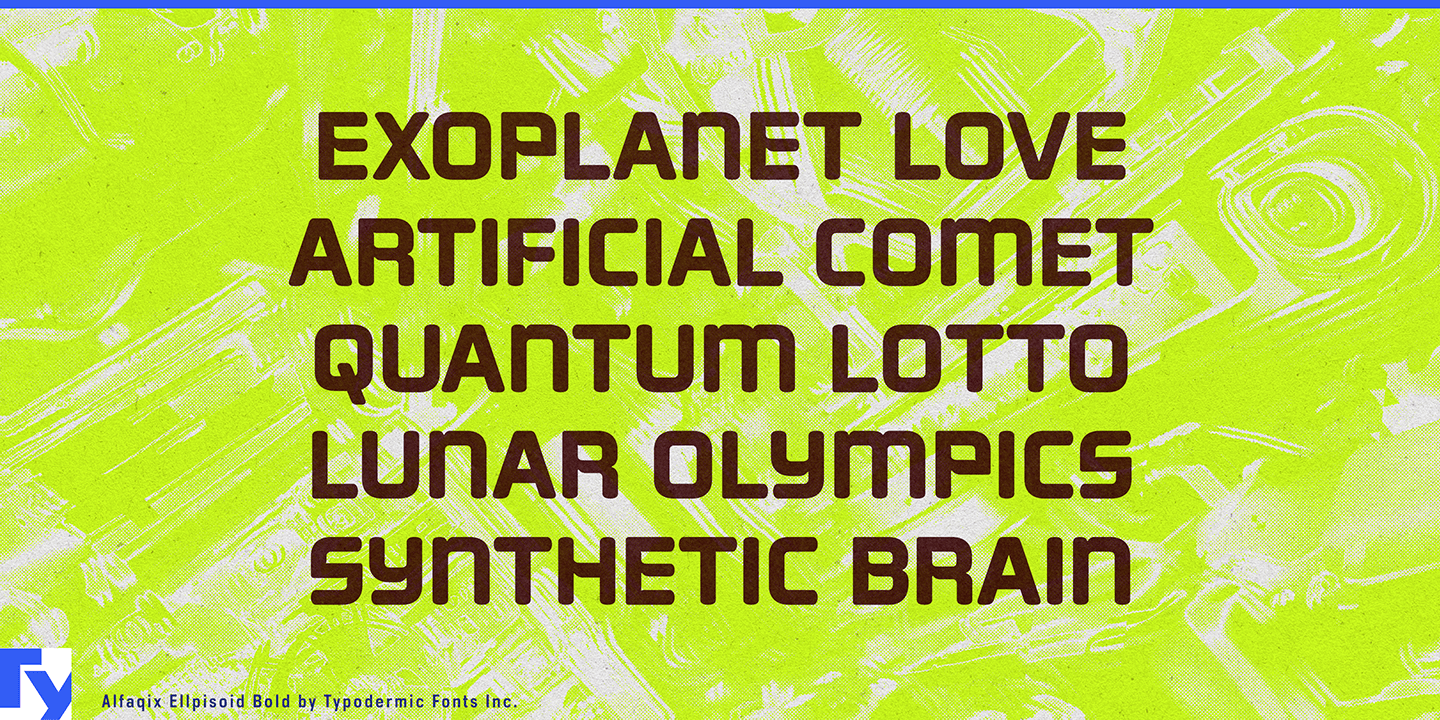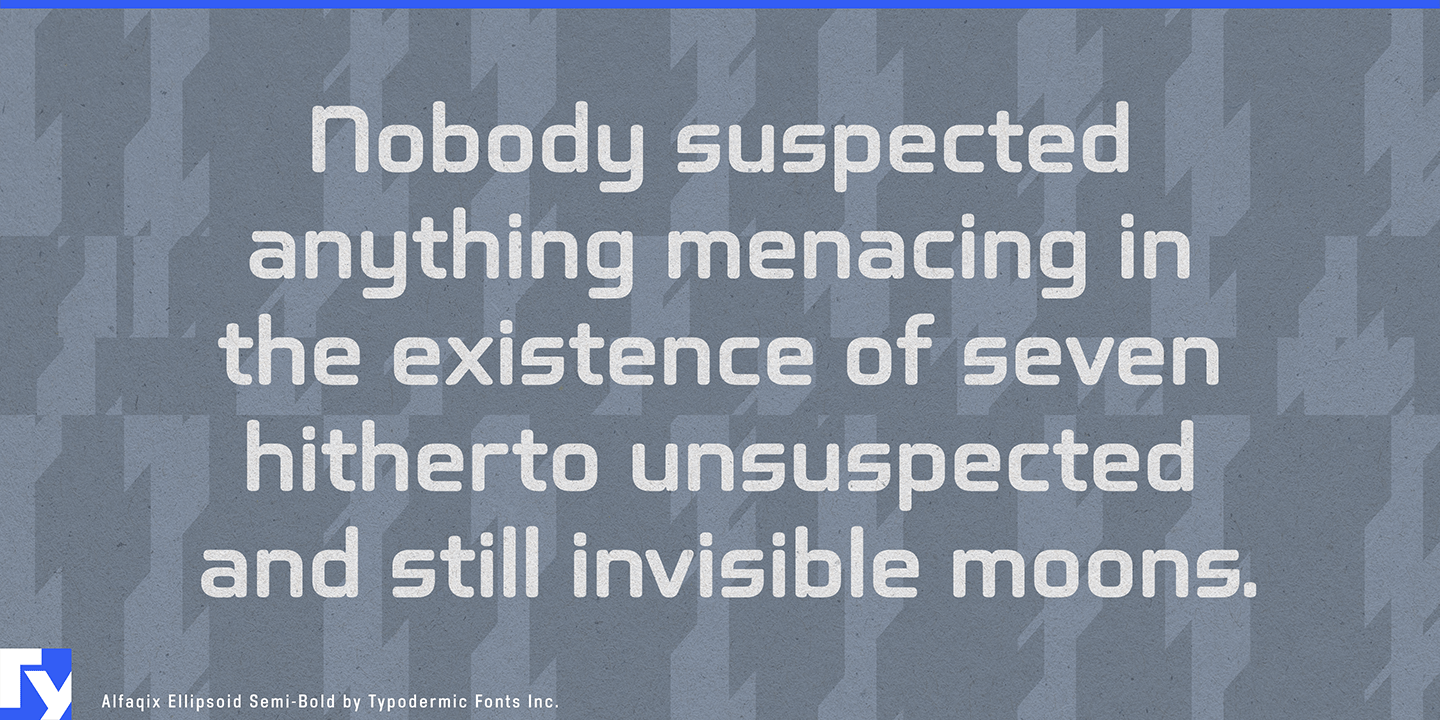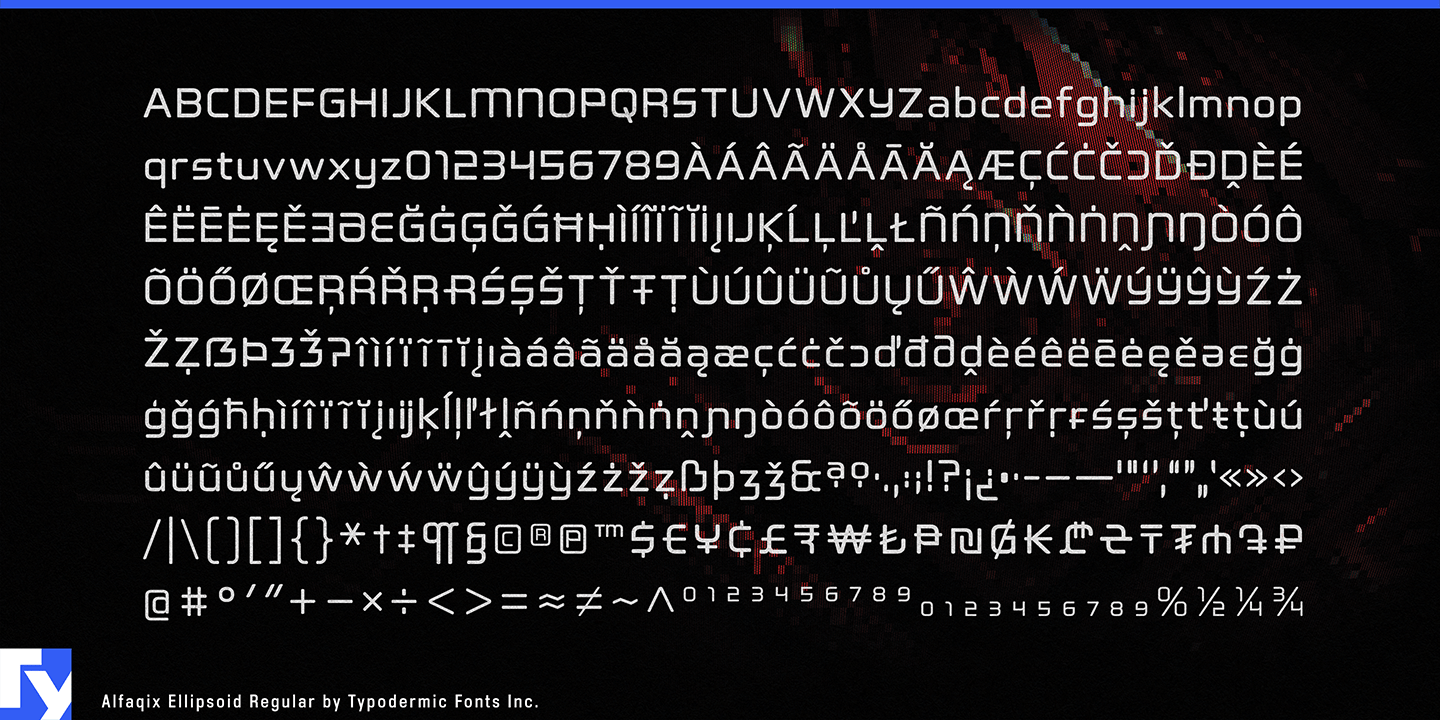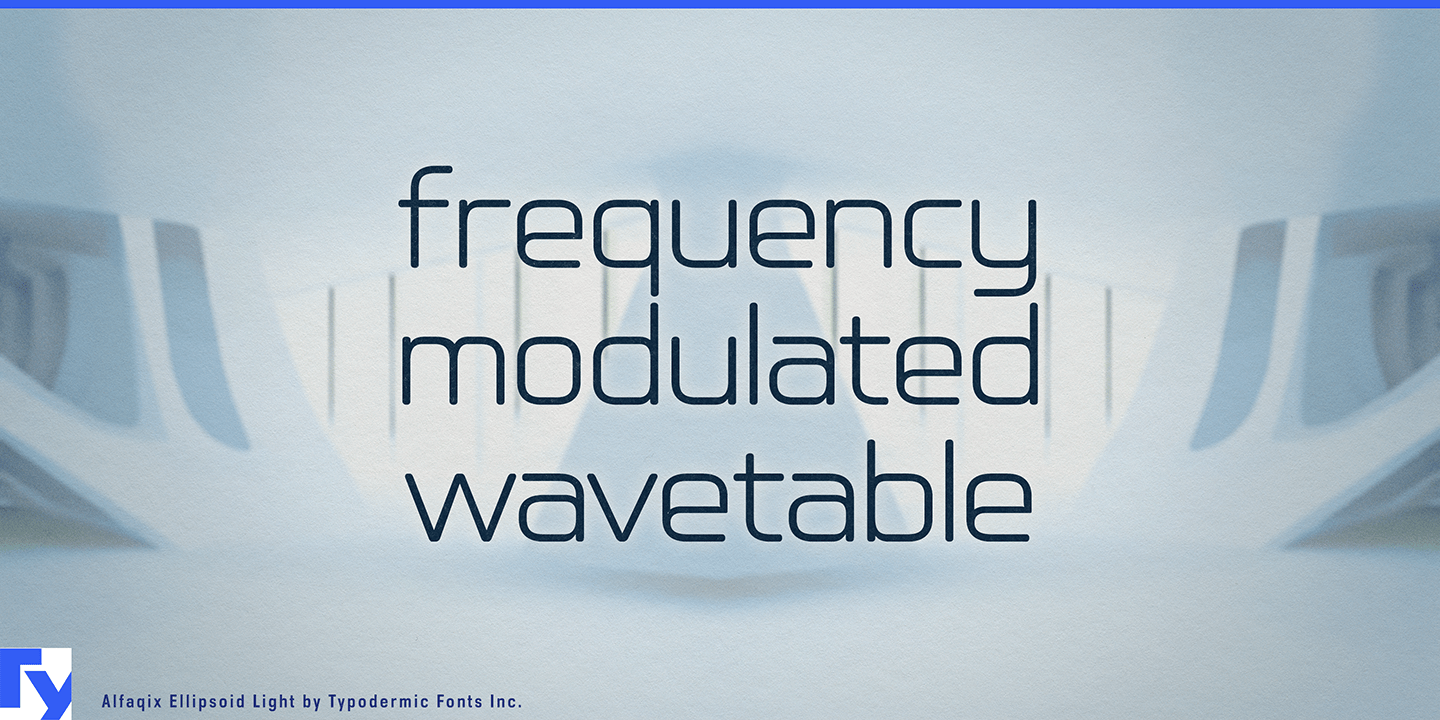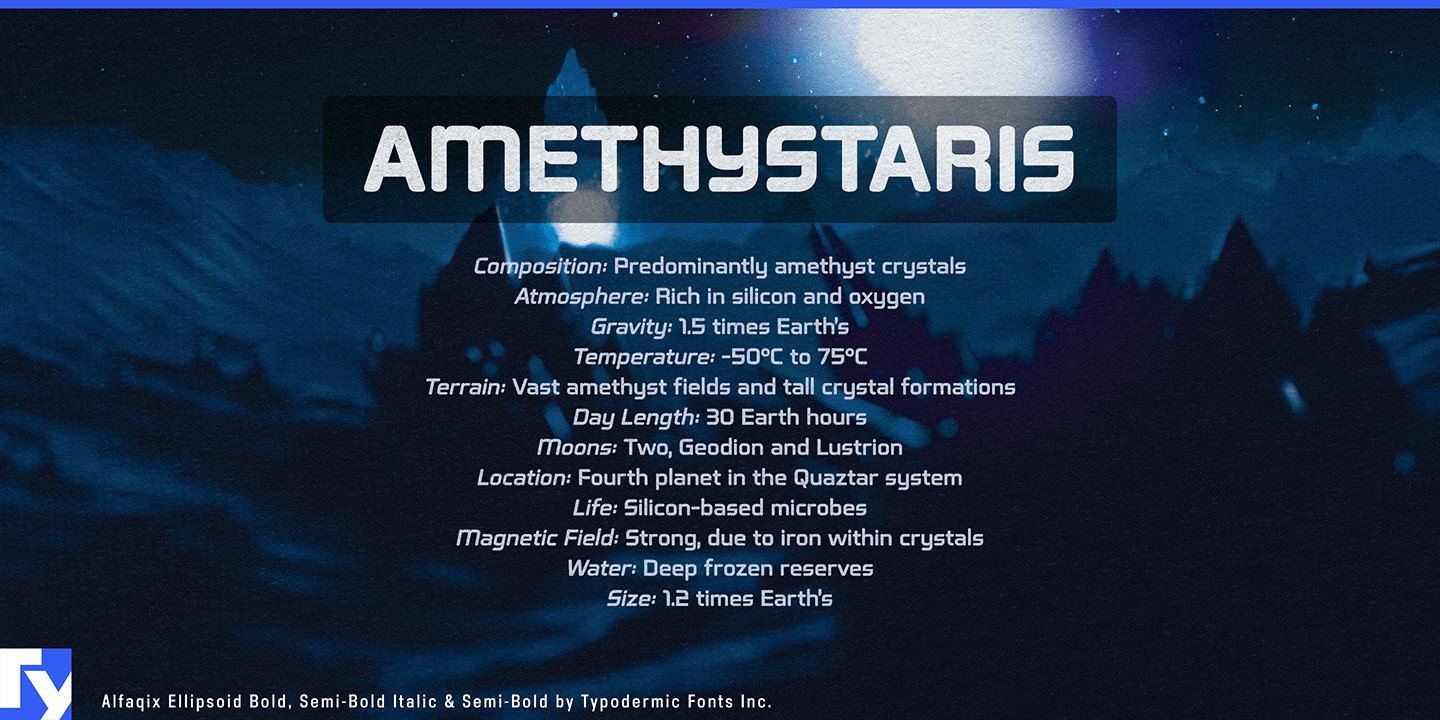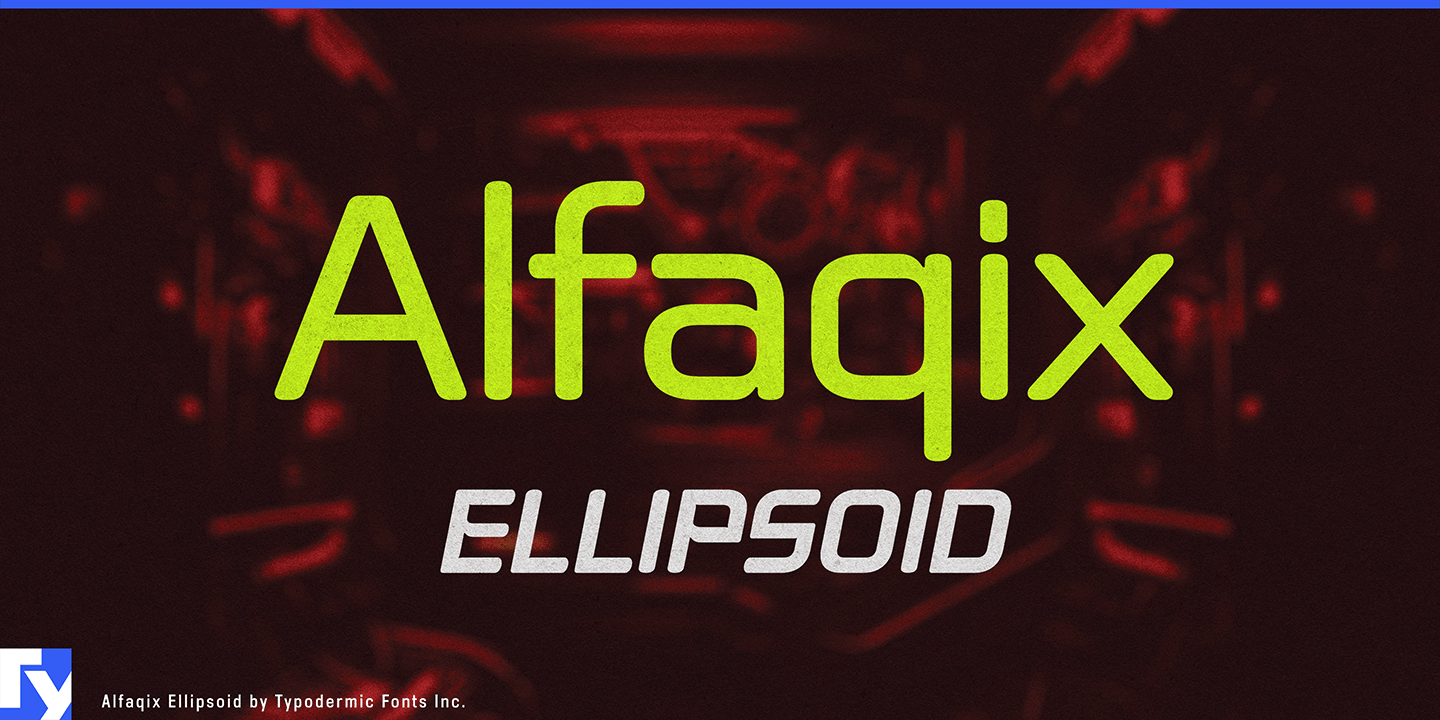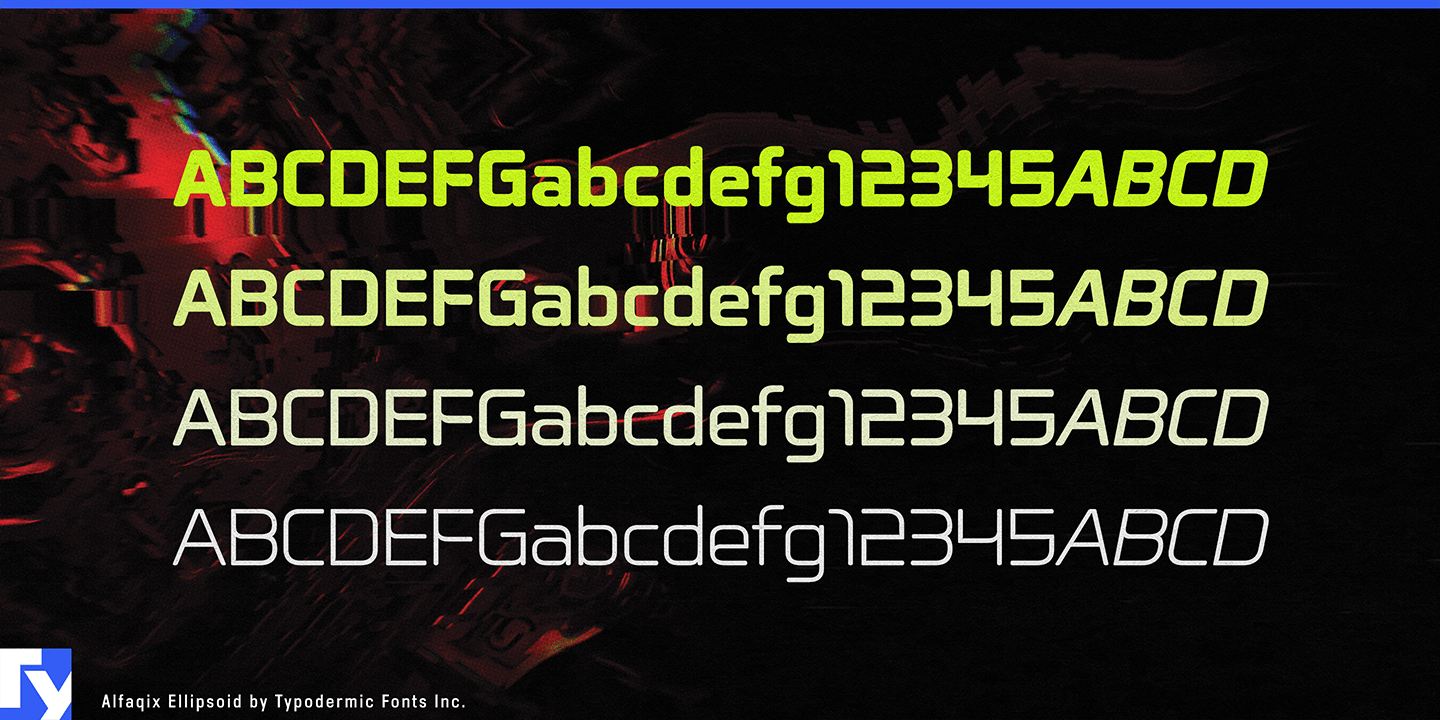
Alfaqix Ellipsoid
About Alfaqix Ellipsoid
Enter the design nexus where past meets future with Alfaqix Ellipsoid, Typodermic Fonts’ latest creation that reimagines the Y2K aesthetic through a post-technological lens. This typeface artfully balances retro-futurist cool with contemporary design…